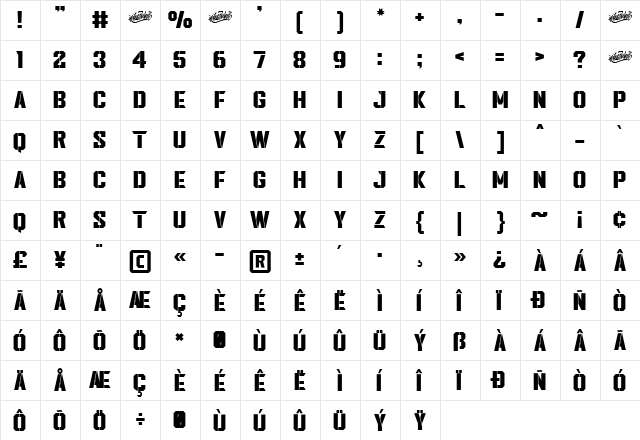
Lordcorps Stencil
Design Context for Lordcorps Typeface
Lordcorps borrows the utilitarian aesthetic of stencil lettering, with its characteristic cutaways and no-frills construction lending an industrial edge.
A strong choice for packaging that needs edge, warehouse aesthetics, and rough-and-ready visual identities.
Pro Tip: Use Lordcorps at large sizes on packaging, posters, or apparel where the stencil cutaways read clearly. Avoid small sizes where those gaps become visual noise.